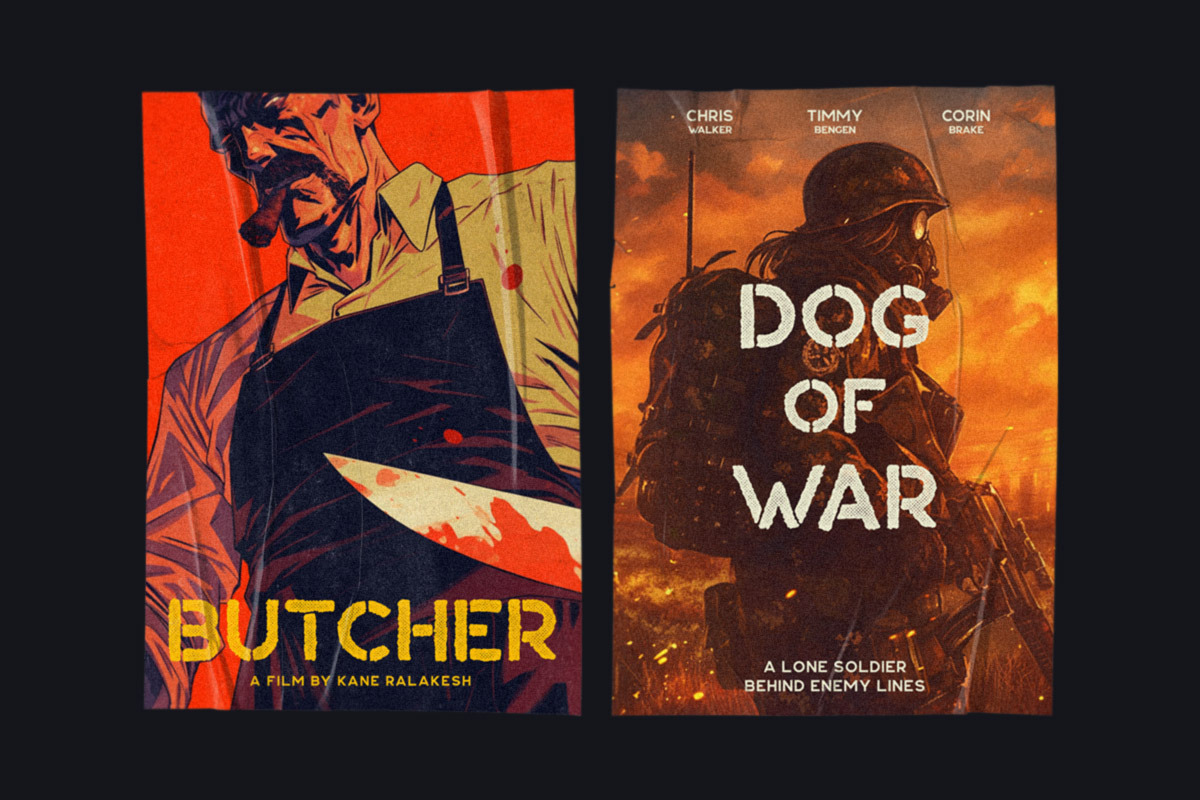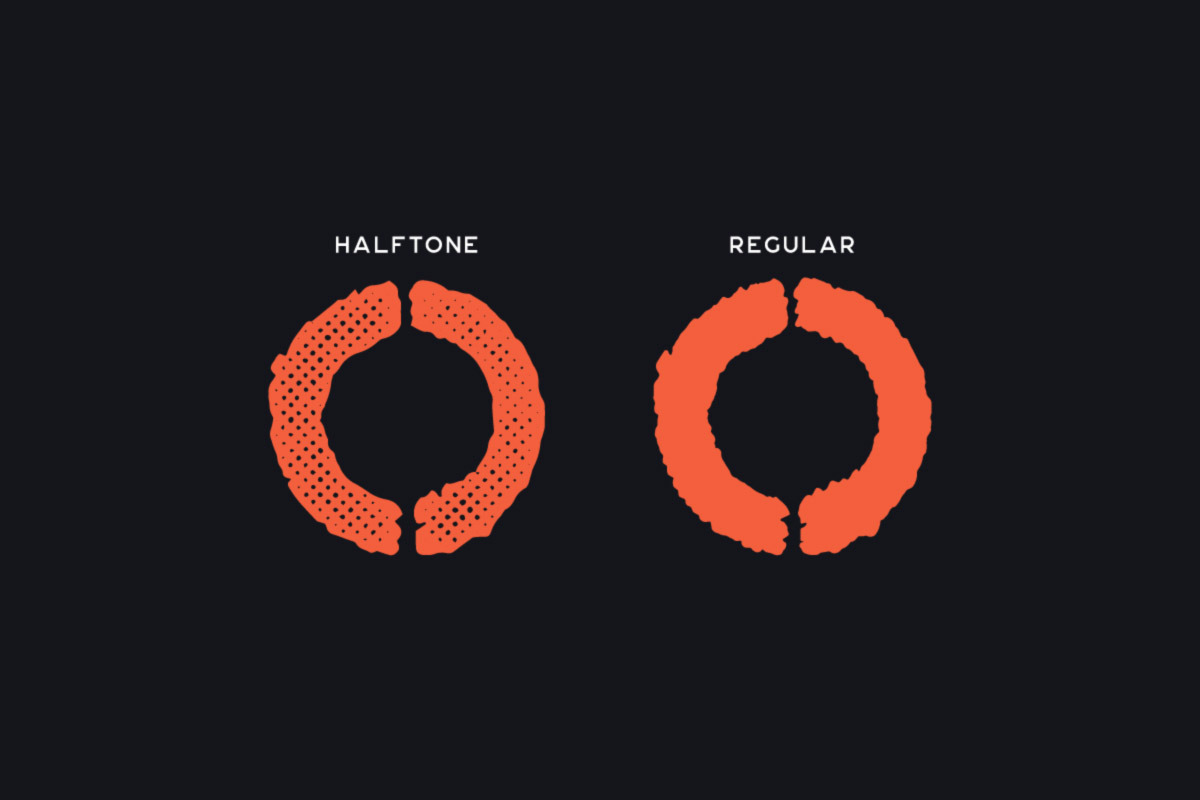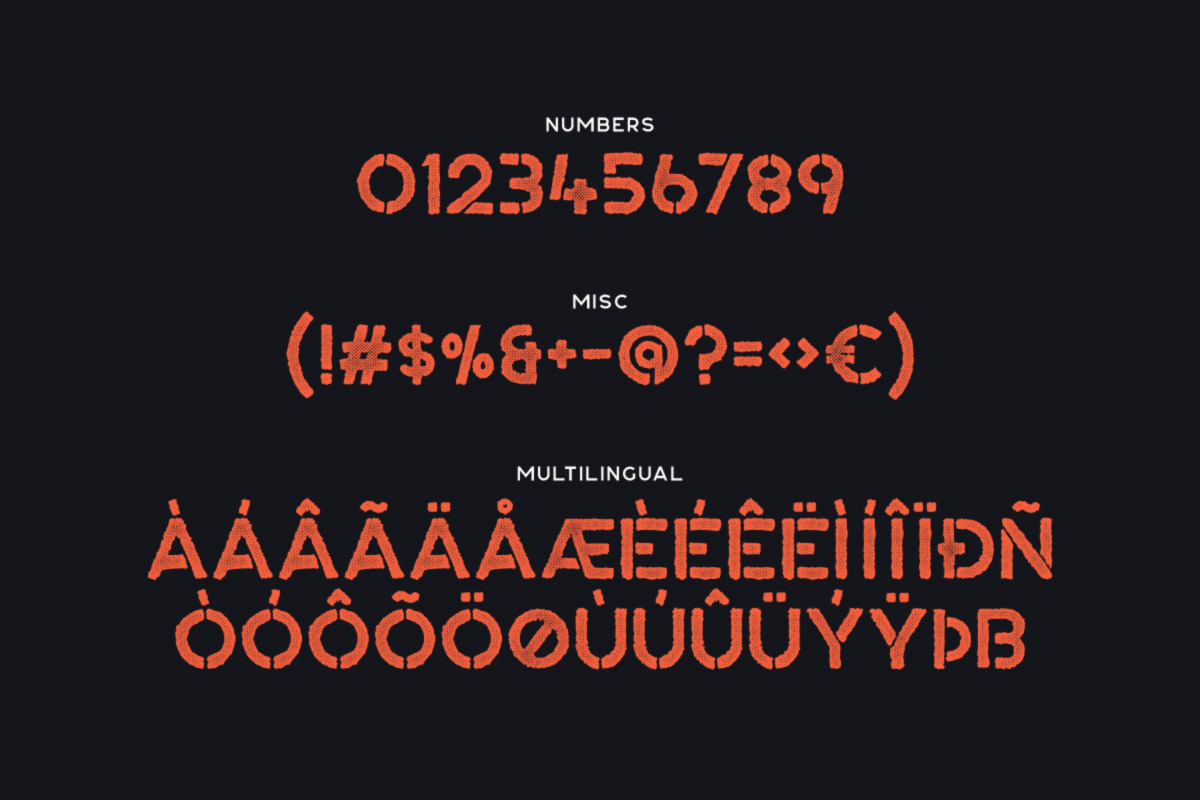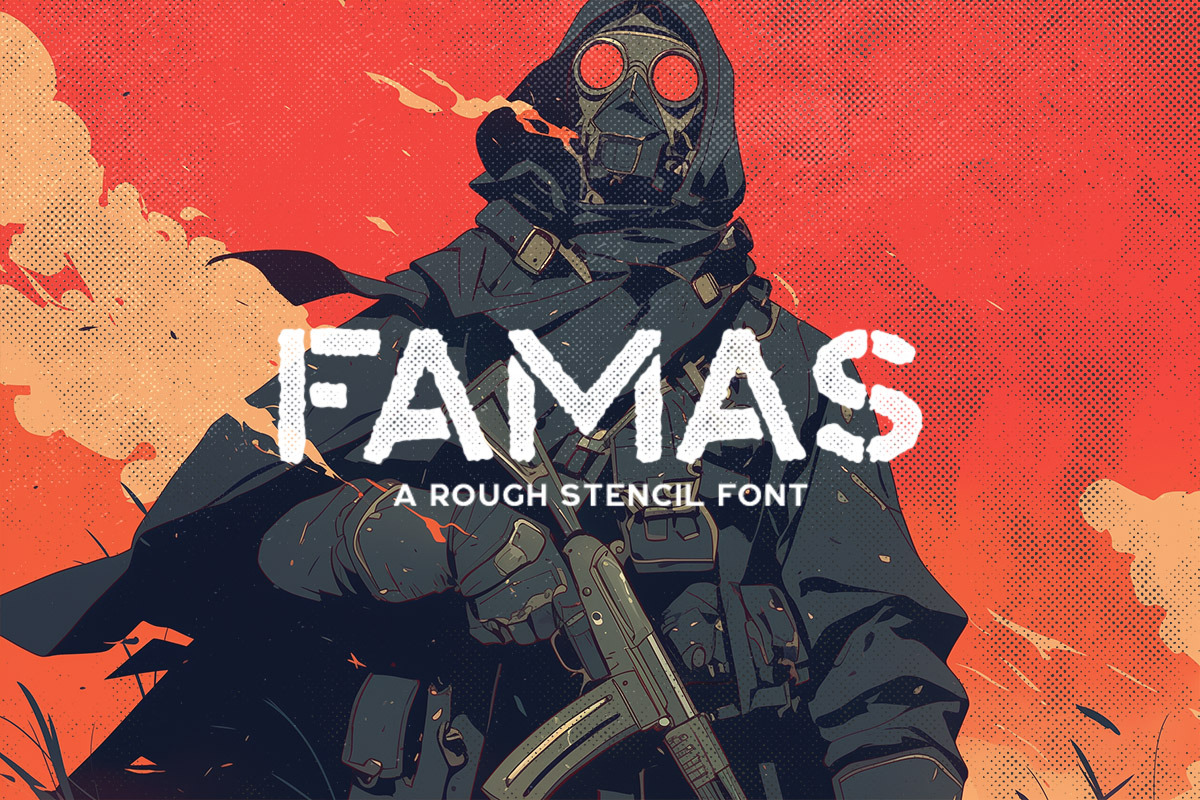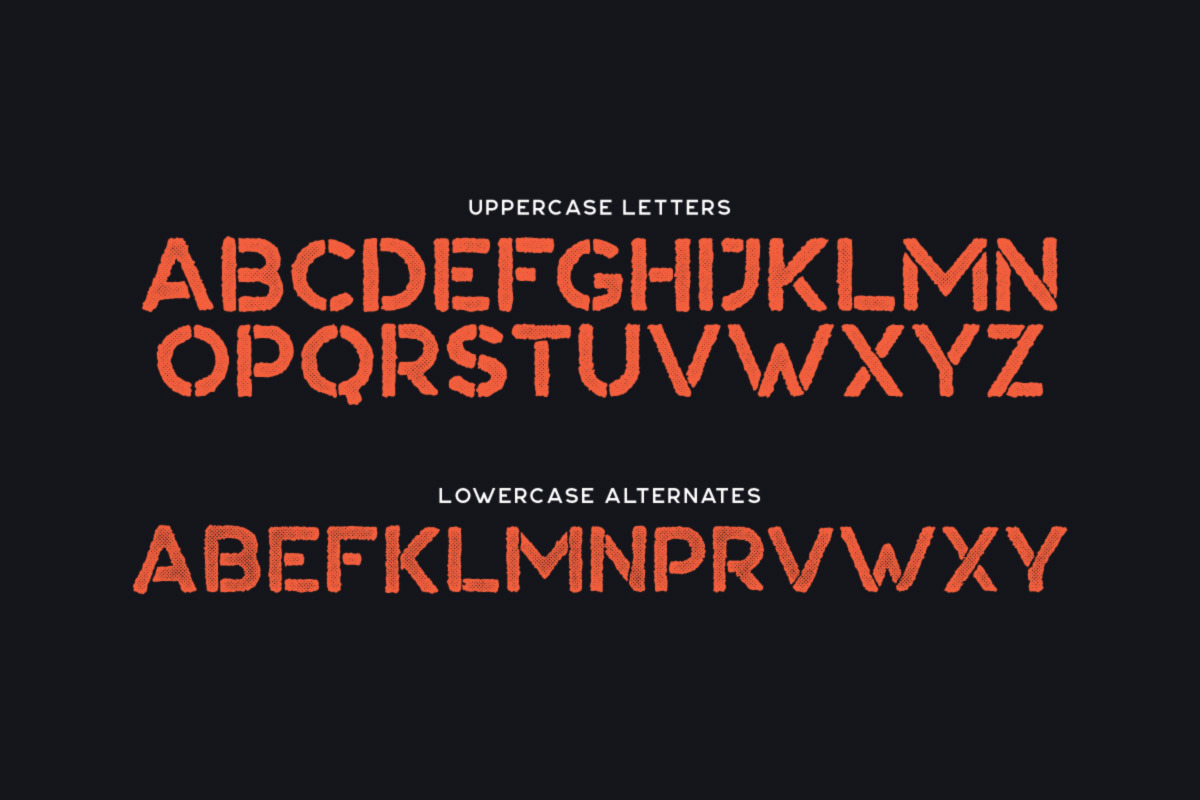
Famas Typeface
Famas is a hand-drawn stencil font with two style options and a bunch of alternate characters. The halftone version might be tough to load when installing.